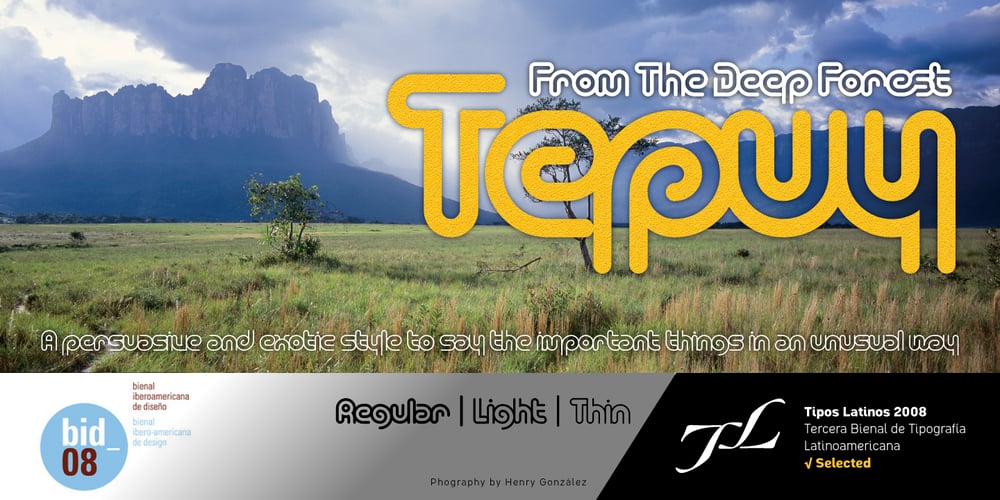
Tepuy Font Family was designed by published by John Moore Type Foundry. Tepuy contains 4 styles and family package options. Tepuy is the name given to the ancient plateau-shaped mountains that abound in the Venezuelan Amazon. Tepuy is a display typeface inspired by the symbolic forms of the Venezuelan ethnic roots. It is constructed based on a very precise geometry of open forms that produce a double letter in form and counterform. Tepuy originates as an evolution curve of my Font Makiritare rectilinearly. Was devised for a book of photographs of the ancient mountains of the Venezuelan Amazon, its form and Makiritare are morphologically inspired crafts in the ethnic groups of the region. Tepuy is held in a very precise geometric construction based on rounded forms, each letter is a form envelope enclosing another in counterform, is a letter to display. Tepuy comes in four versions Regular, Light and thin, and there is a double line version enclosed. Tepuy recommended for creative headlines for the label and packaging design aimed at all ages.